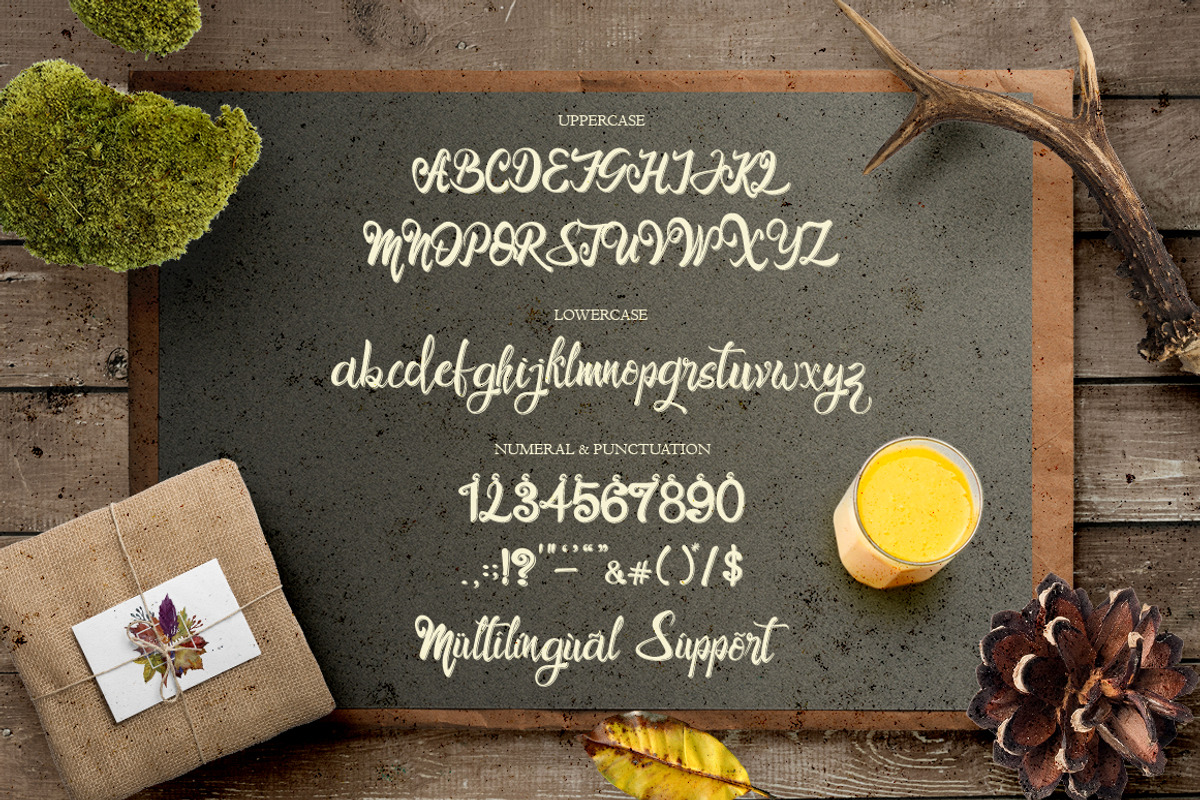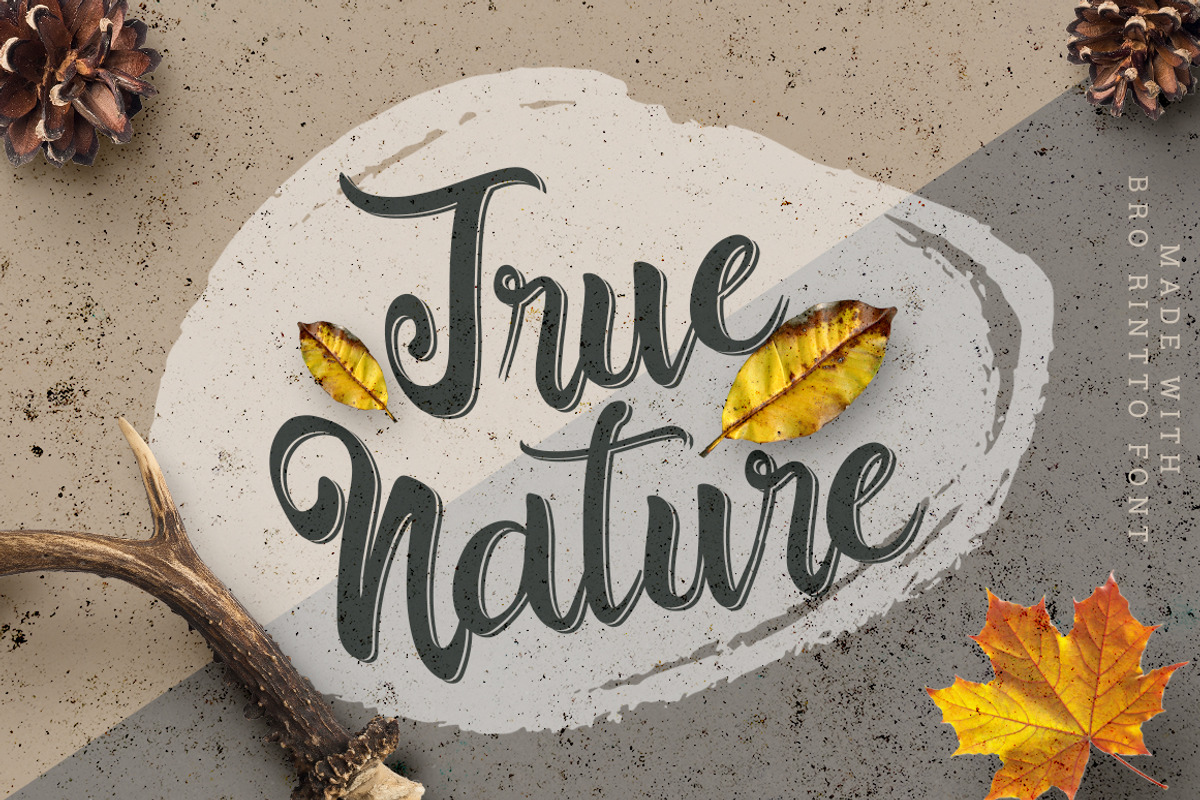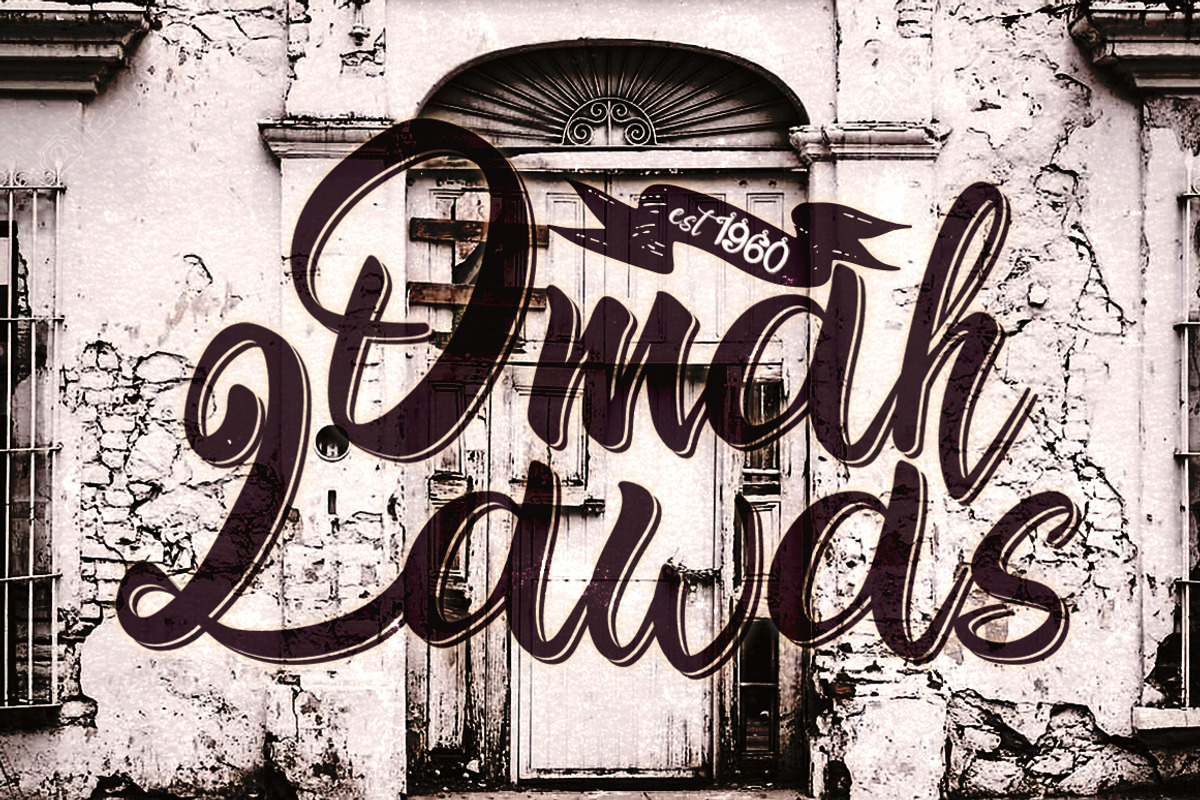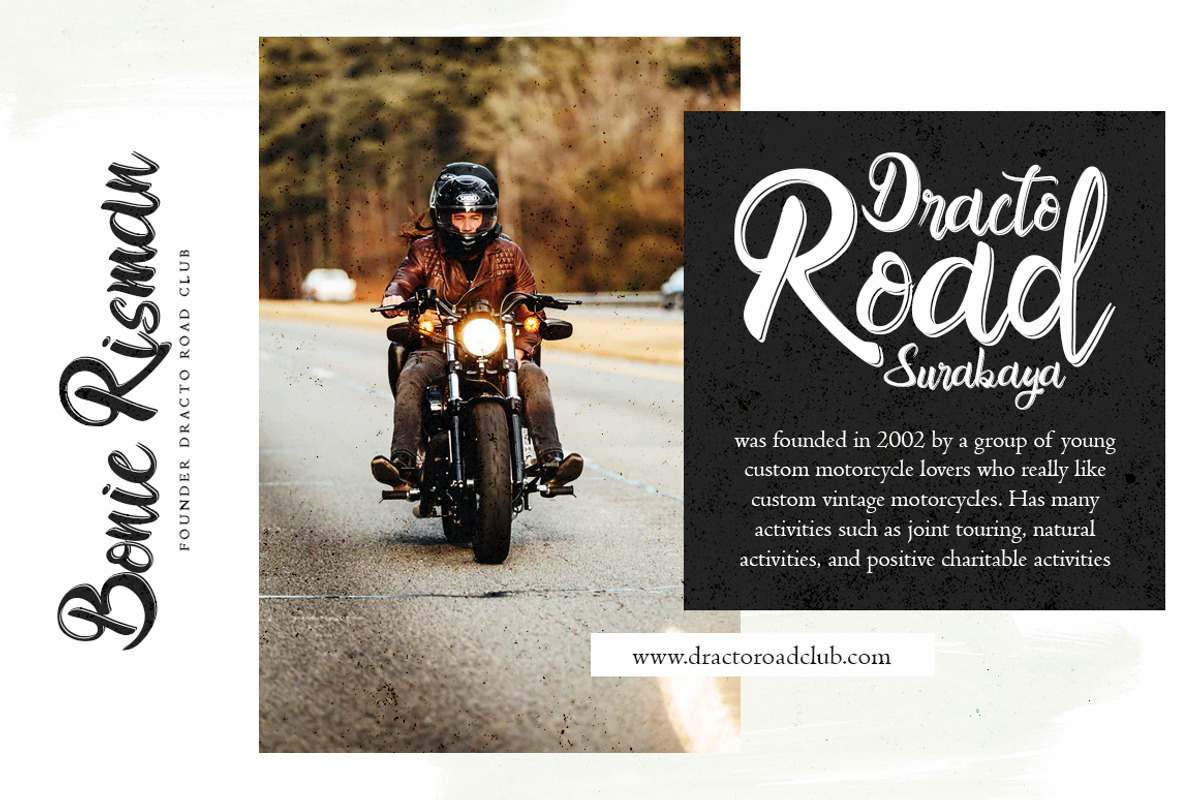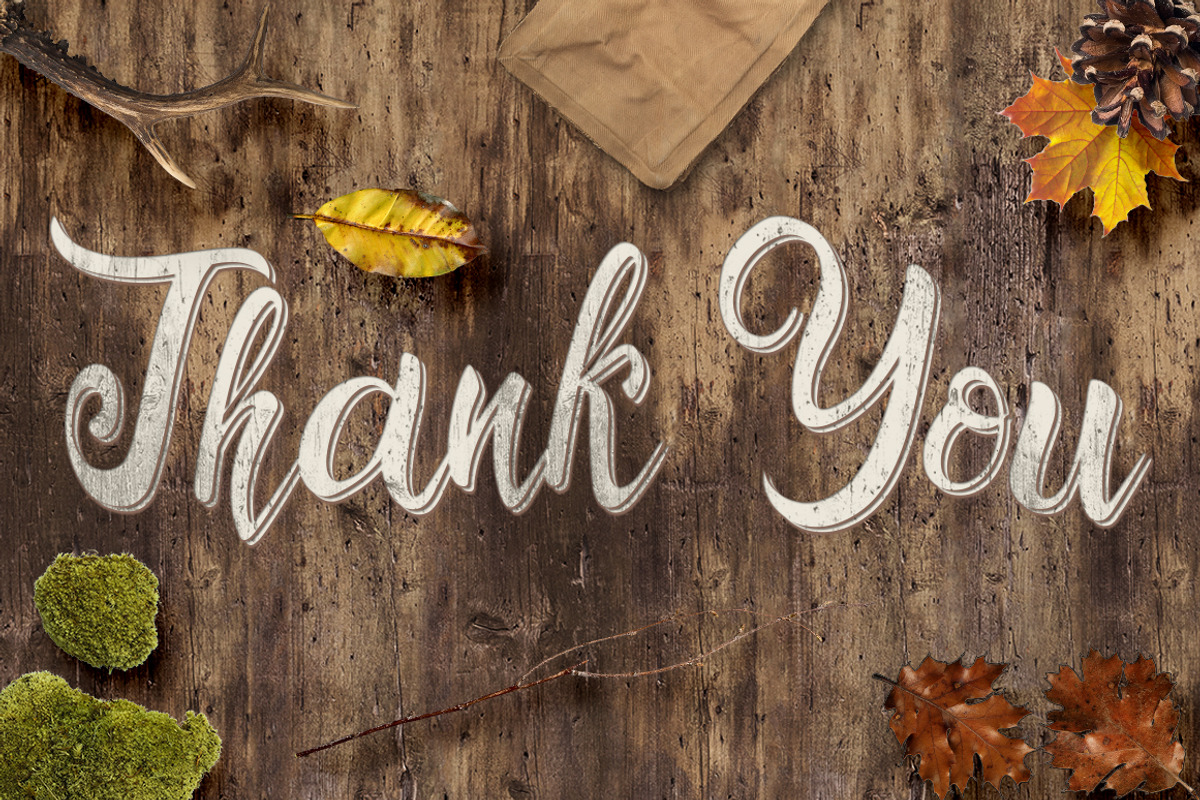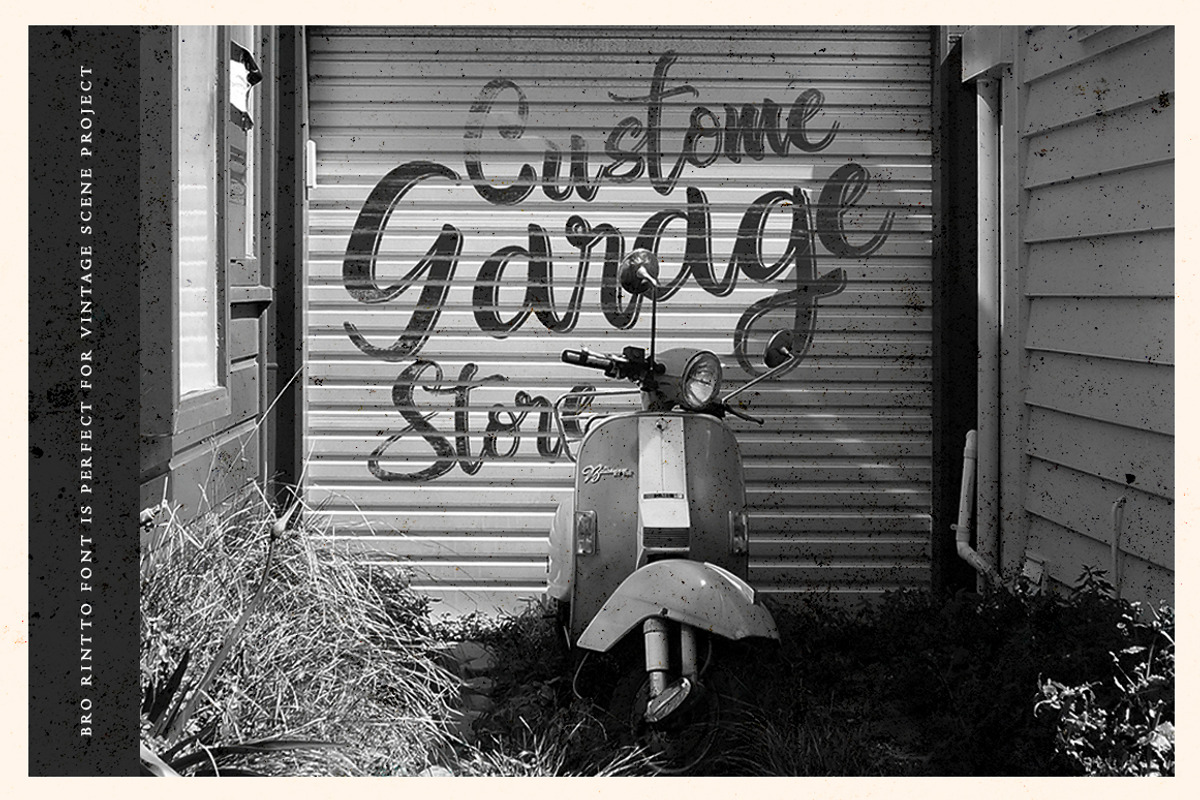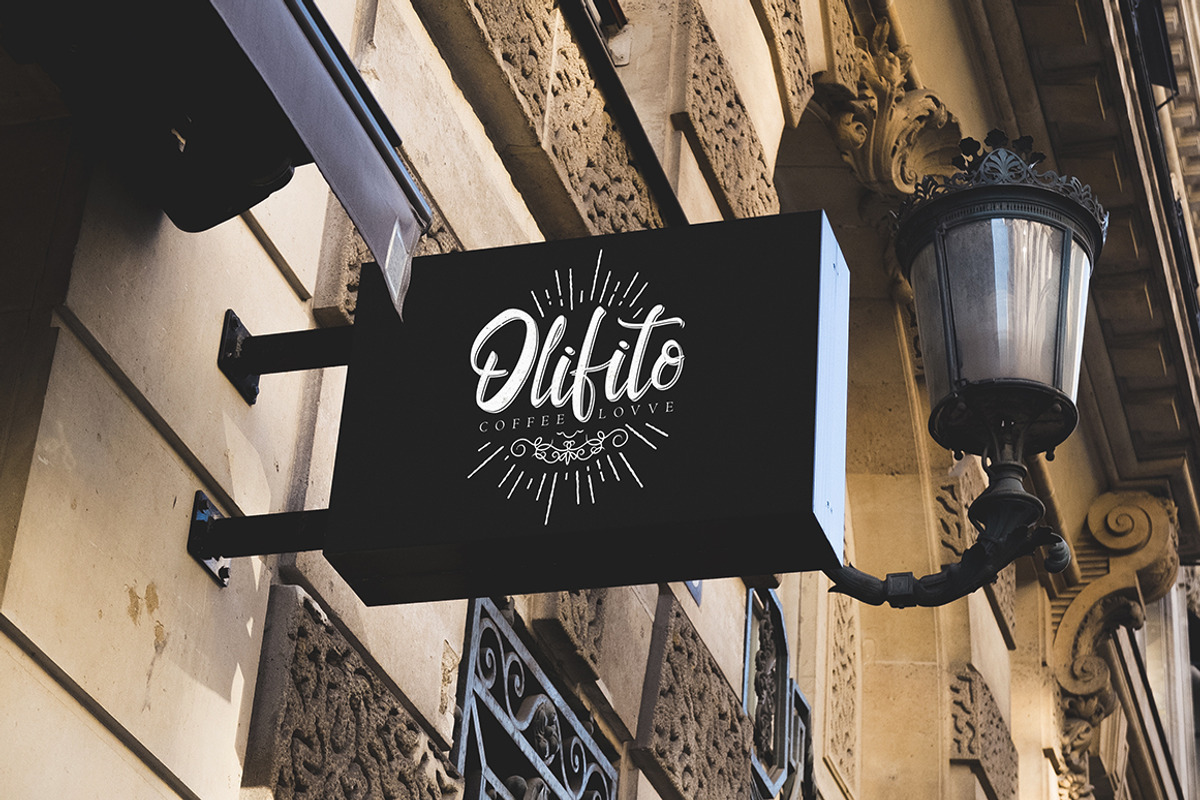
Bro Rintto Font
Introducing Bro Rintto – Bold Shadow Handwritten Font. Made with naturally handwritten and modern style, it brings beautiful and modern typeface.
Bro Rintto font would be perfect for logos & branding, photography, watermark, social media posts, advertisements, invitation, product designs, label, stationery, wedding designs, product packaging, special events or anything that need handwriting taste.
Ton of glyphs (include Uppercase, Lowercase, Numerals & Punctuations, Ligature, Alternate, and Swashes)
Fonts include Multilingual Support for: Afrikaans, Albanian, Danish, Dutch, Estonian, Finnish, German, Icelandic, Italian, Norwegian, Portugese, Spanisch, Swedish, Zulu
Bro Rintto Font by Kotak Kuning Studio fits naturally into Branding, posters, packaging, typography.